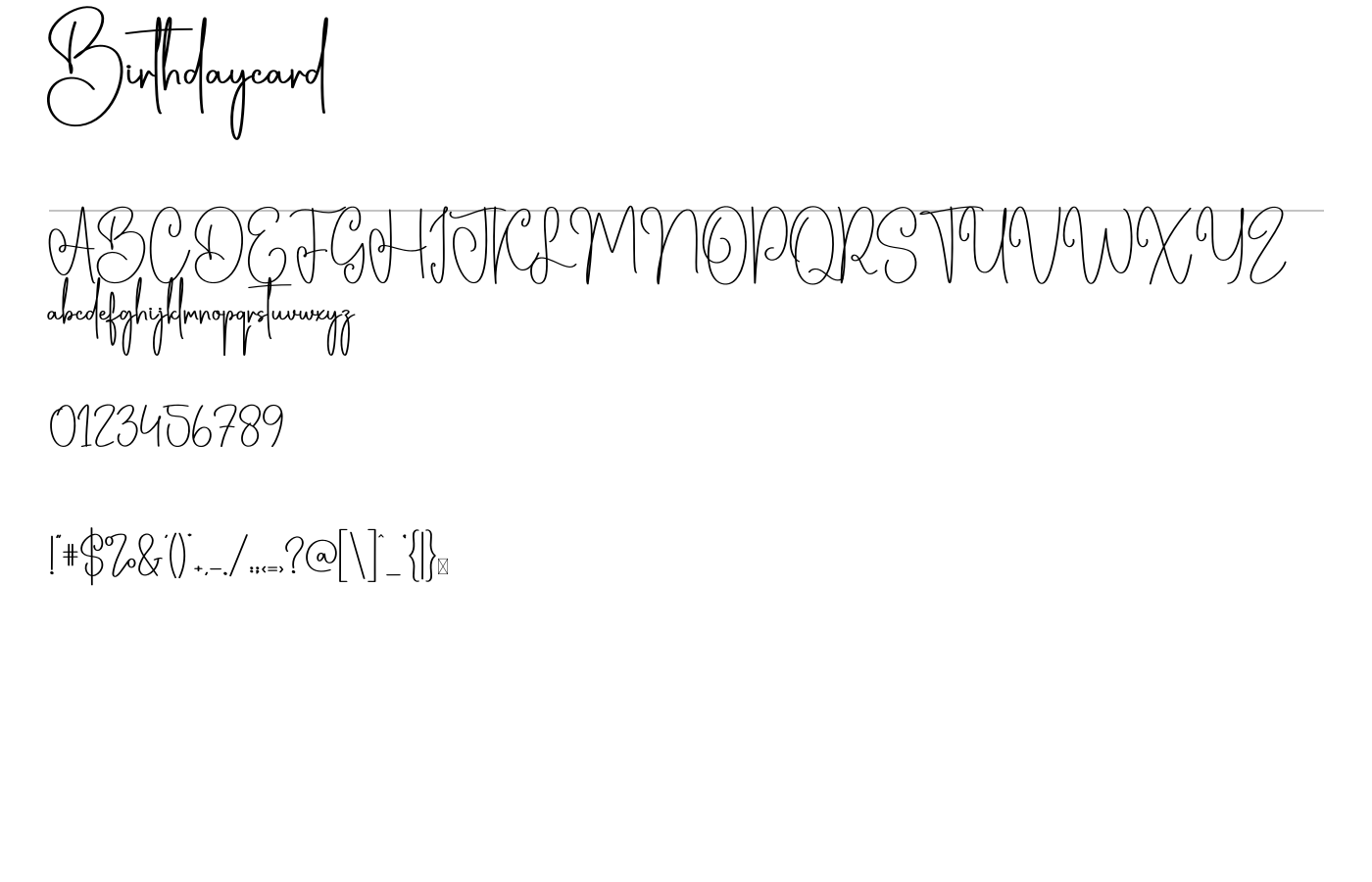
Birthdaycard Font is a delicate, handwritten script that features tall, slender strokes with elegant swirls and loops, giving it a whimsical and sophisticated feel. Its thin, airy letterforms work beautifully for invitations, greeting cards, and branding that seek a personal, heartfelt, and charming touch. This font is ideal for designs where a graceful, artistic style enhances warmth and creativity.
Birthdaycard Font
About Birthdaycard Font